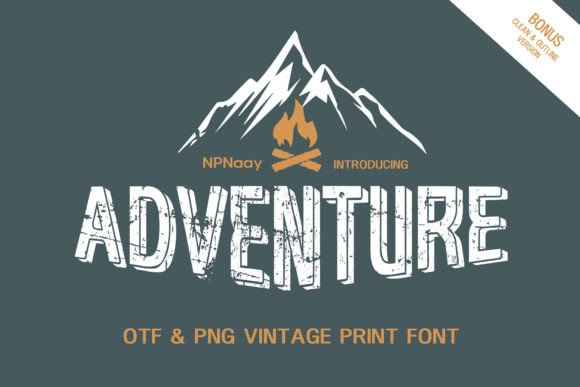
The Ultimate Guide to Adventure Font: Elevate Your Designs with a Vintage Twist
Have you ever been in the middle of a design project, and suddenly, you’re stuck on finding the perfect font? I recall a recent experience where I was working on a branding project for a travel company, and I just couldn’t find a font that captured the essence of adventure and nostalgia. That’s when I stumbled upon the Adventure font, a vintage and retro display font that completely transformed my design. In this article, we’ll dive into the world of Adventure font, exploring its features, uses, and some helpful tips and tricks to make the most of this amazing font.
A Personal Review: What I Love About Adventure Font
Here’s what I love about Adventure font:
- ✨ Unique vintage and retro vibe that adds a touch of nostalgia to any design
- ✅ Highly legible, even at larger sizes, making it perfect for headings and titles
- 💥 Excellent for creating eye-catching posters, flyers, and brochures
- 🎨 Versatile and can be used for a wide range of design projects, from branding to packaging
While Adventure font is an excellent choice for many design projects, there are a few things to keep in mind:
- 🤔 Limited suitability for body text, as it’s primarily designed for display purposes
- ⚠️ Some characters may not work well at very small sizes, so it’s best to use it at larger sizes
- Experiment with OpenType features, such as glyphs and stylistic alternates, to add more personality to your text
- Take advantage of OpenType features, such as ligatures and stylistic sets, to add more depth to your text
The Backstory of Adventure Font
Adventure font was designed by a team of creatives who wanted to capture the essence of vintage adventure and exploration. Inspired by classic travel posters and retro typography, they crafted a font that’s both nostalgic and modern. The result is a unique and versatile font that’s perfect for designers, crafters, and creative hobbyists alike.
| Font Name | Adventure Font |
| What is Adventure font? | Adventure font is a vintage and retro display font designed for creative projects. |
| Is Adventure font suitable for body text? | No, Adventure font is primarily designed for display purposes and may not be suitable for body text. |
In conclusion, Adventure font is an excellent choice for designers, crafters, and creative hobbyists looking to add a touch of vintage adventure to their designs. With its unique features, versatility, and ease of use, it’s sure to become a favorite in your font collection.